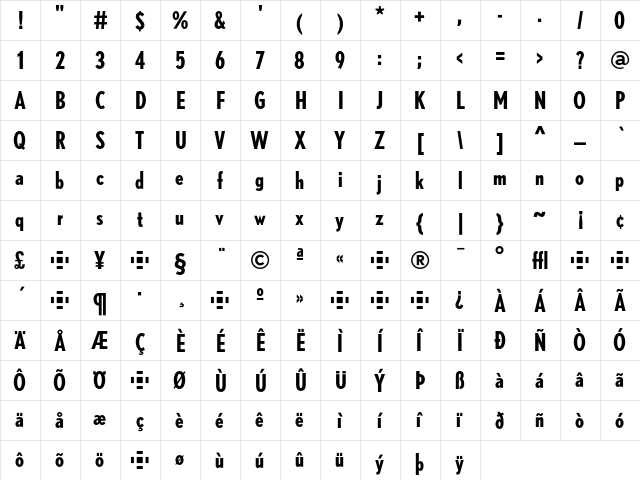
Nobel BoldCondensed
Design Context for Nobel Typeface
Nobel offers clean, dependable letterforms without strong stylistic allegiance, making it a practical choice for designers who need flexibility. Its bold stroke weight gives it real presence on the page. Its narrow stance lets it pack a punch even in space-constrained designs.